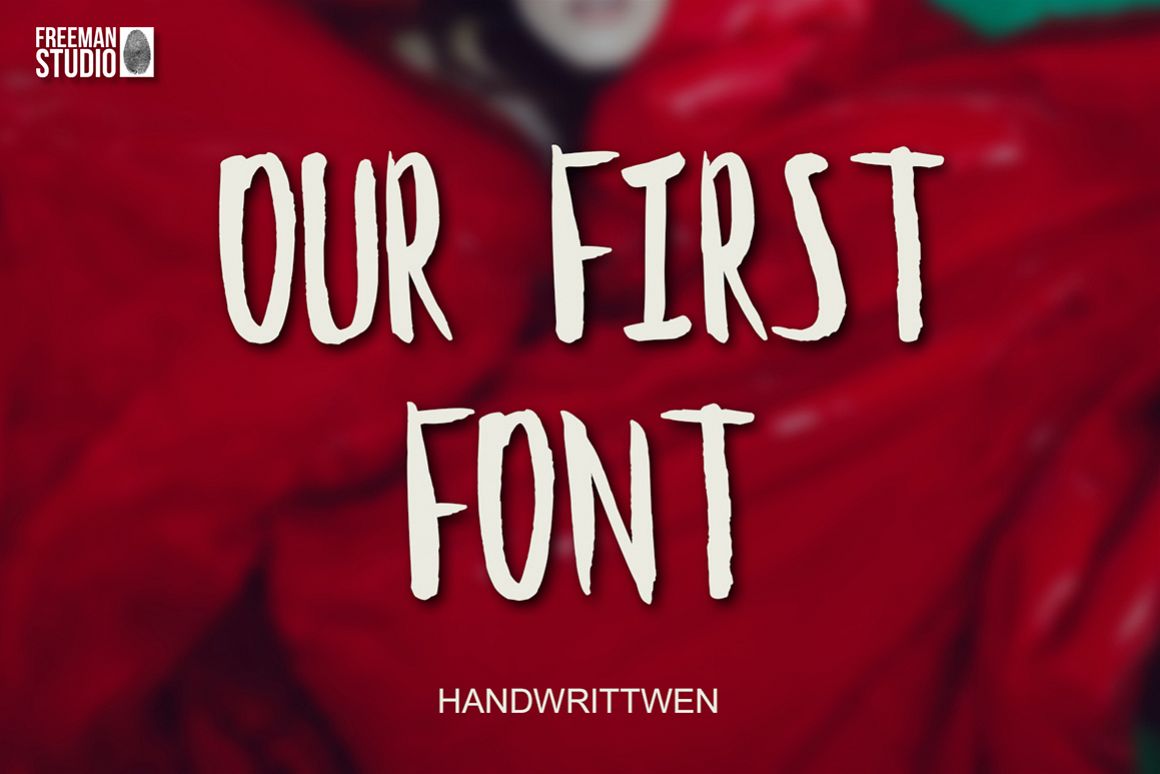
Our First Font
OurFirstFont
Our First Font
Hello! We present to you Our First Font! This font was made completely manual! Use our font fonts for invitations, cards, posters, and albums!